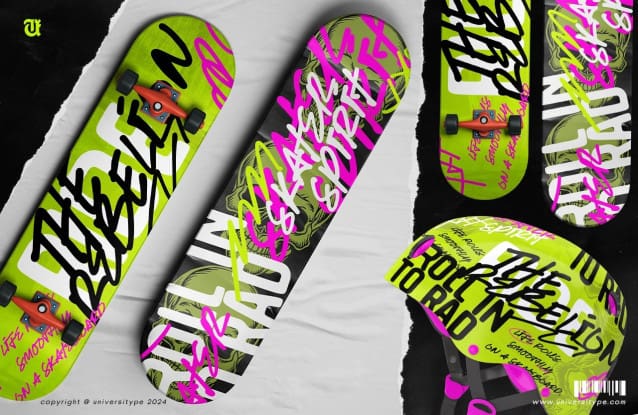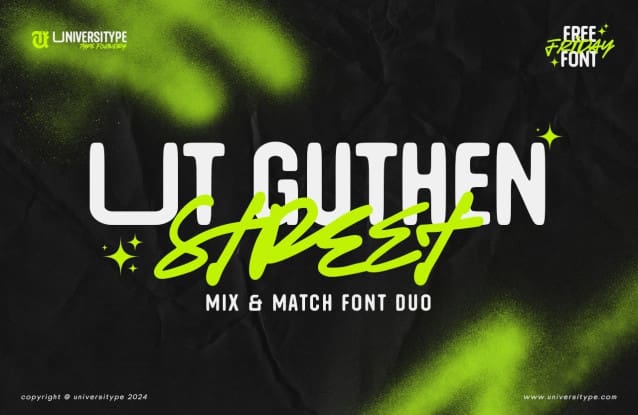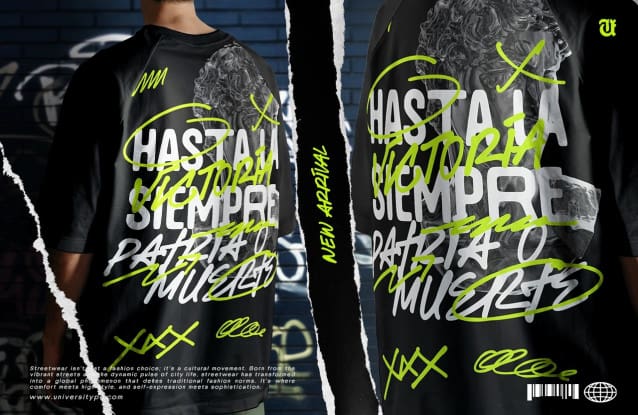
UT Guthen Street Font Duo
UT Guthen Street Font Duo: UTGuthen Street and UTGuthen Street Sans, a versatile font duo combining urban flair with modern professionalism. Ideal for designers seeking to make a bold statement while maintaining clarity in their projects. Discover how this fusion of tradition and urban spirit can elevate your designs.